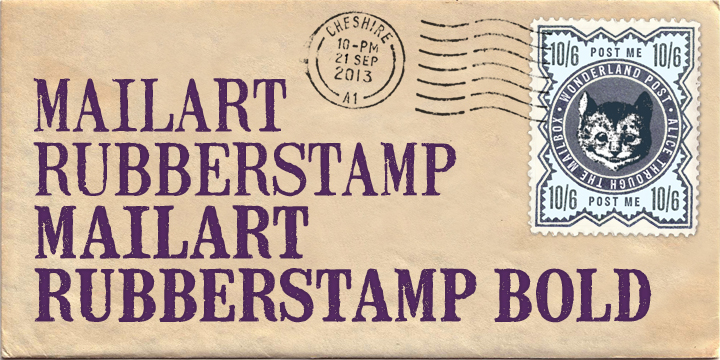
Mailart Rubberstamp is a captivating display font that exudes a sense of weathered authenticity. Inspired by the individually stamped letters found on collaged envelopes from mail artists, this typeface seamlessly blends the vintage aesthetic of rubber stamps with the structured elegance of Clarendon Condensed.
Its eroded, condensed appearance lends an intriguing, tactile quality, evoking a rustic, handcrafted charm. Mailart Rubberstamp's versatility shines through, making it an excellent choice for a wide range of design applications, from packaging and editorial layouts to branding and advertising.
The font's recent updates have further refined its character, enhancing the European accented characters and improving the overall spacing for a more cohesive, harmonious visual experience.
© 2004, 2013 www.k-type.com " The Mailart Rubberstamp fonts are derived from the individually rubber-stamped letters on printed and collaged envelopes received from mailartists, plus the typeface Clarendon Condensed.
Mailart Rubberstamp
Keith Bates